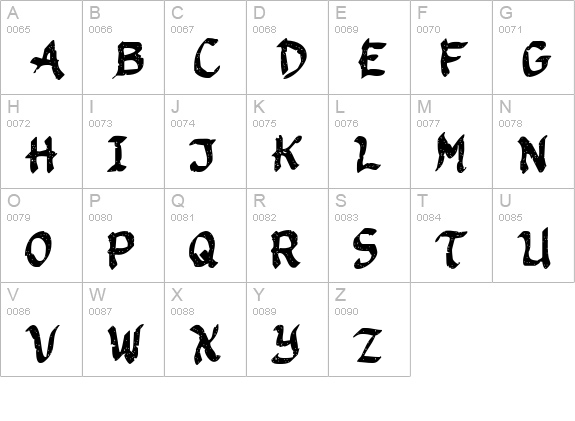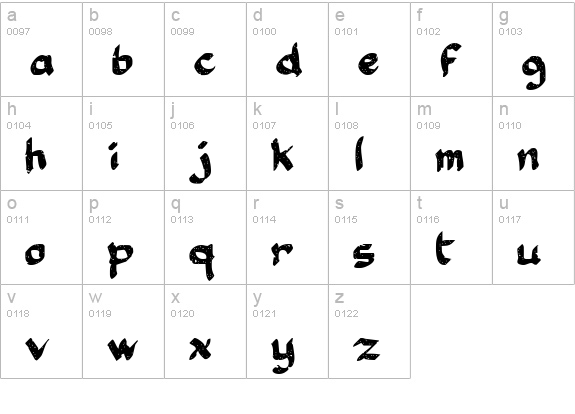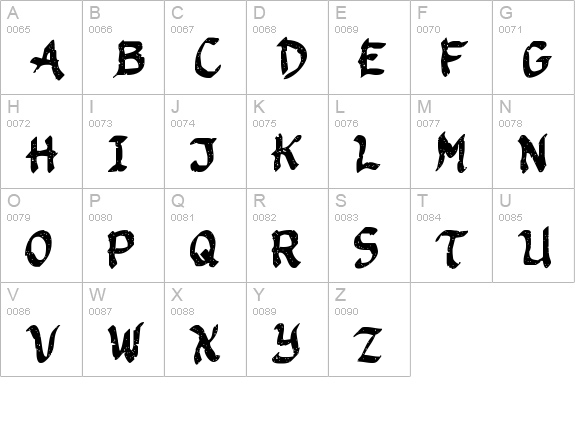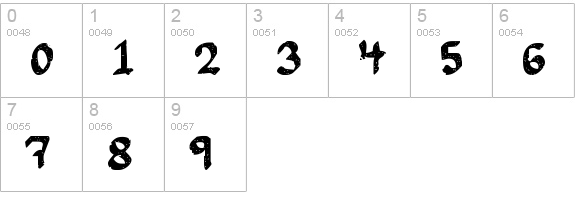
Happy Customer Font Details
Happy Customer font is a delightful and playful typeface that is sure to bring a smile to your face. With its rounded edges and bouncy letterforms, this font exudes a sense of joy and positivity. It is perfect for adding a touch of cheerfulness to any design project. What makes Happy Customer font even more special is that it is available for free! Yes, you read that right. You can download this amazing font for absolutely no cost at FontsMarket.com. Whether you are a professional designer looking to add some fun to your creations or a casual user in need of a font that radiates happiness, Happy Customer font is the perfect choice. With its wide range of characters and ligatures, Happy Customer font offers endless possibilities for creative expression. From invitations and greeting cards to logos and social media posts, this font can be used in a variety of ways to bring your designs to life. But it's not just the vibrant design and versatility that sets Happy Customer font apart. Its ease of use and compatibility with various design software make it a must-have for both beginners and experienced designers. You can easily install and start using this font in no time, enhancing your projects with its unique style. So why wait? Get your hands on the Happy Customer font today and let it spread happiness in your designs. Remember, it's freely available to download at FontsMarket.com, so you have no excuse not to add this charming font to your collection. Unleash your creativity and let Happy Customer font bring a cheerful and positive vibe to all your design endeavors.